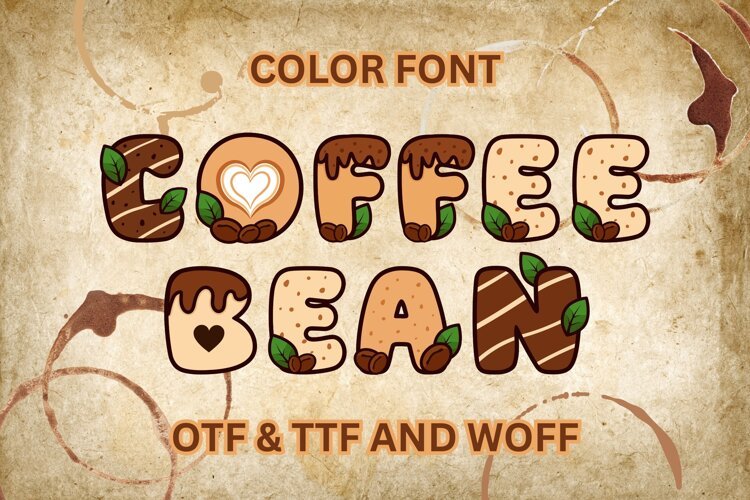
Add a warm, cozy coffee-shop feel to your creative projects with this adorable Coffee Bean Color Font. Each character is illustrated with coffee-inspired details such as roasted coffee beans, green leaves, chocolate drizzles, latte art, whipped cream, cookie textures, and creamy café colors.
The chunky rounded lettering makes it especially suitable for eye-catching titles, branding, packaging, stickers, invitations, café menus, sublimation designs, and digital crafts.